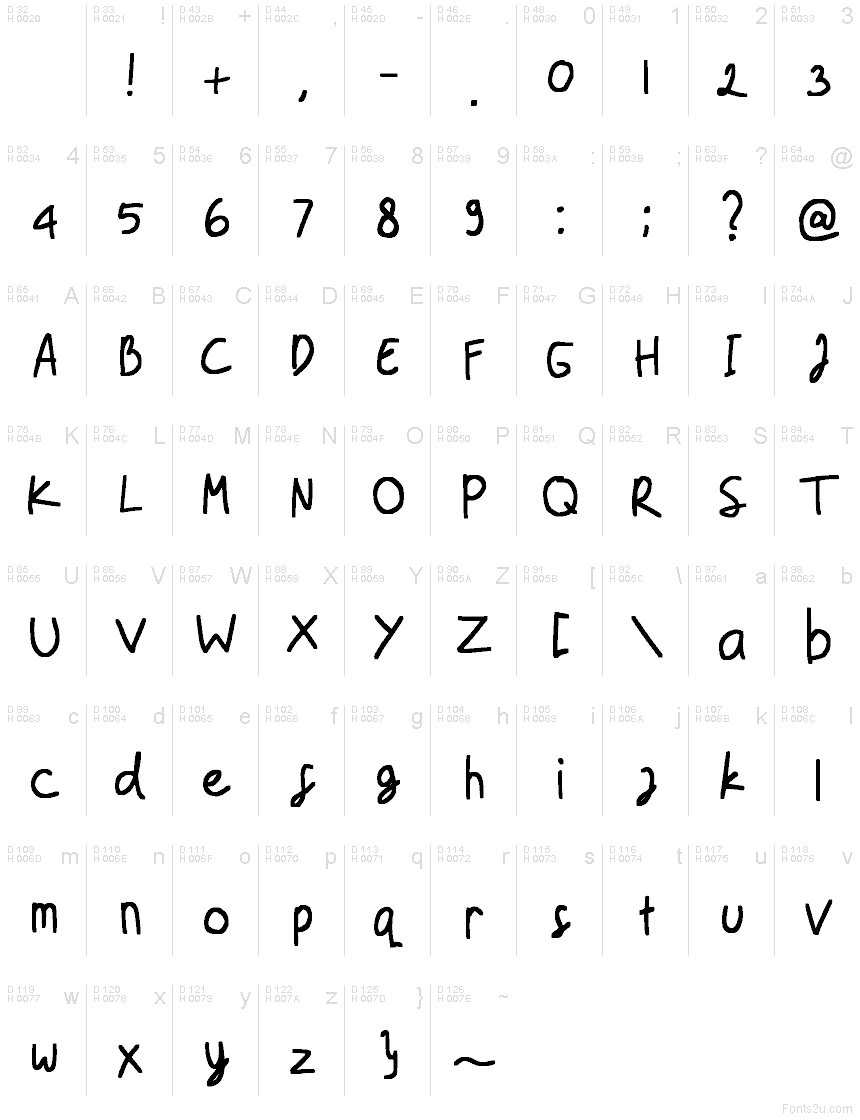
Kuyang Satu Regular
Kuyang Satu font by Ansysmrk is a free handwritten typeface that solves a familiar headache: you want friendly, real handwriting without the mess. Its marker‑like strokes feel inky and lively, yet the spacing is steady and the forms stay open, so headlines pop and short text remains readable. There’s a gentle bounce to the rhythm that adds charm without tipping into chaos.
This free font shines on product labels, Instagram posts, classroom materials, event flyers, journaling covers, YouTube thumbnails, and stickers. The bold, rounded shapes carry warmth at medium sizes and still hold up on small tags or captions. Using Kuyang Satu with a clean geometric sans for body copy keeps layouts tidy while the hand-drawn voice leads.